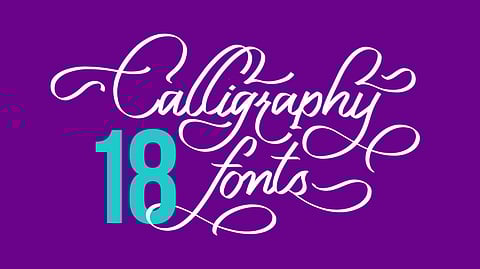
18 Free Calligraphy Fonts to Fancy-Up Your Designs
Don't just put a font for the sake of it, put it for creating an impactful impression on the reader. Browse through this list of 18 best calligraphy fonts to achieve your target.
Fonts are known to be the most important element of graphic design. Balancing the rest of the design with the type of font to be used is quite a challenging task for a designer.
It is but necessary to have the right font, not too much, not too less, to have a long-lasting impact of the message to be conveyed to the readers.
From what was done manually ages ago using ink and brush to create graceful calligraphy has now gone all digital, but still with the same look and feel of the hand-crafted old-time beauty.
1. Candlescript
A smooth and flowy typeface designed with an intricate level of detail, Candlescript is suitable to be used as a logotype, custom typeface, title, header or advertisements.
2. Mike Ferrari
Mike Ferrari is a typeface based on the Spencerian Script. Composed using elegant and beautiful strokes, it is just the perfect font to gracefully colour up any project with a human touch.
3. Feathergraphy
A high-quality script font with multilingual support and a large number of special characters, Feathergraphy is a hand-crafted typeface that can be used for logotypes, titles and slogans as well as a tattoo style font in clean and decorated versions.